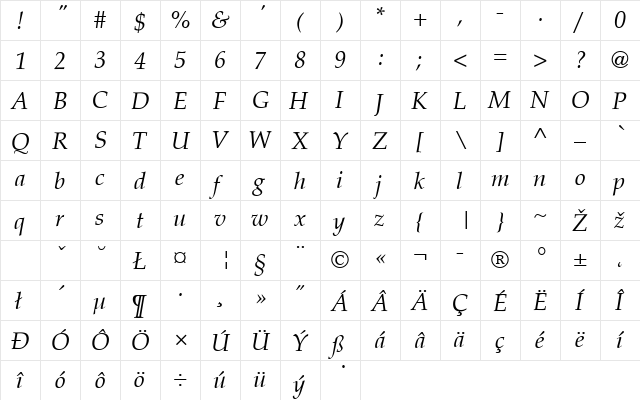
PaltusAntNo3LEE Italic Font Preview
PaltusAntNo3LEE Italic
Design Context for PaltusAntNo3LEE Typeface
PaltusAntNo3LEE is a composed and adaptable typeface that performs quietly and consistently across a wide range of design contexts. Its italic angle brings a sense of urgency and motion to the letterforms.